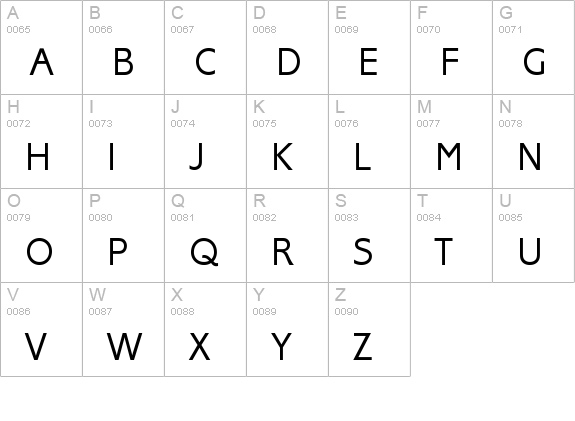
CorinthianEF-Light is a refined, elegant variant in the CorinthianEF typeface family \xE2\x80\x94 well suited to elegant body text, refined sub-headings, and luxury branding.
CorinthianEF-Light is a sophisticated and elegant font that exudes a timeless charm. Its sleek lines and delicate curves make it perfect for adding a touch of class to any design project. Whether you're creating invitations, logos, or branding materials, CorinthianEF-Light will make your text stand out with its refined aesthetic. The best part? CorinthianEF-Light is completely free to download at FontsMarket.com. You can easily elevate your designs without breaking the bank by accessing this beautiful font for no cost at all. Embrace the beauty and versatility of CorinthianEF-Light in your next project and watch as it transforms your text into a work of art.